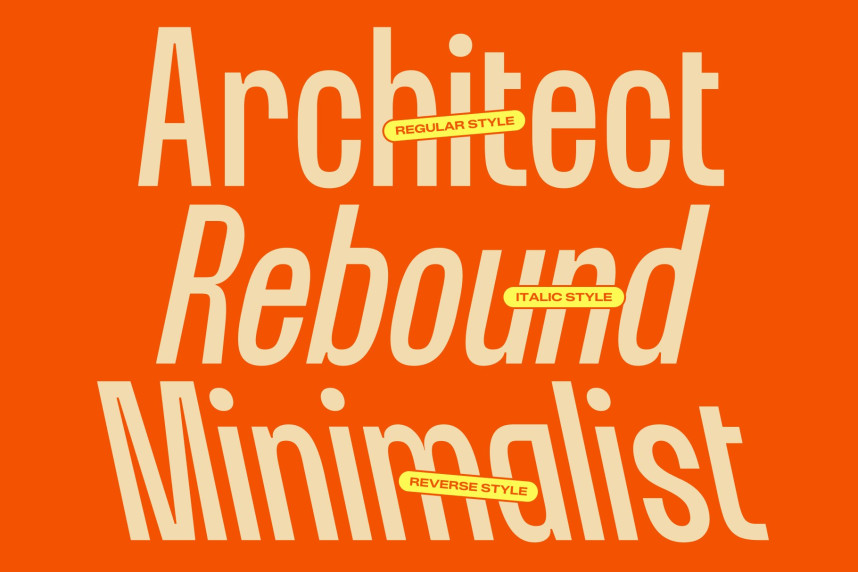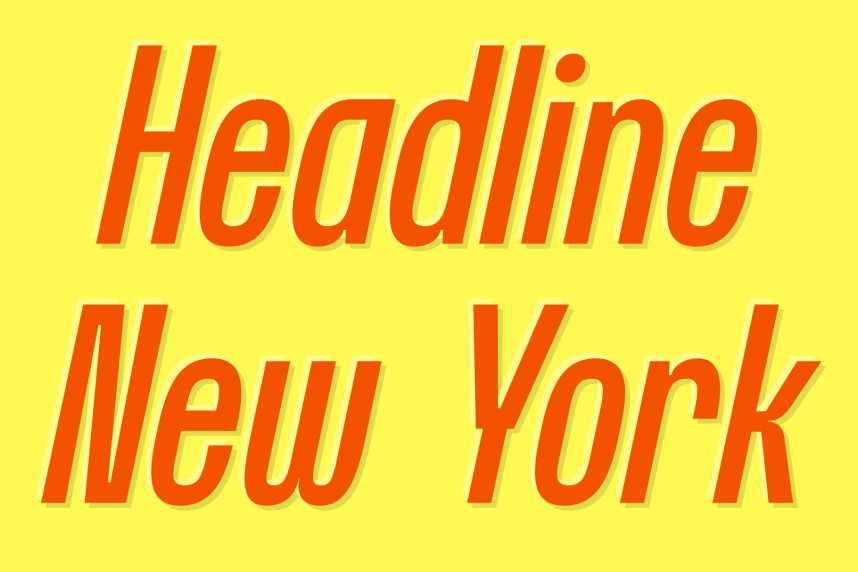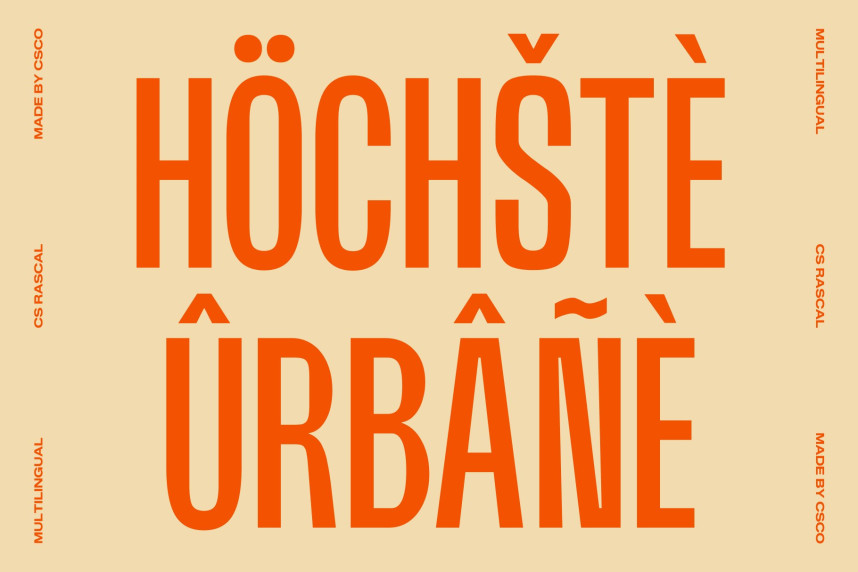
CS Rascal Font
CS Rascal Font – Condensed Display Font with Modern Edge
Condensed Display Font for Contemporary Impact
This is a condensed display font designed to bring modern energy into tight layouts. With its streamlined proportions and confident structure, this typeface turns headlines into striking visual statements while keeping text clear and easy to read. It is crafted for designers who want typography that feels bold, efficient, and unmistakably current.